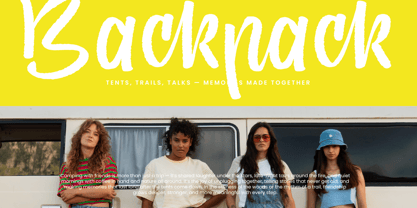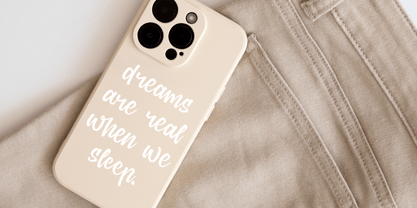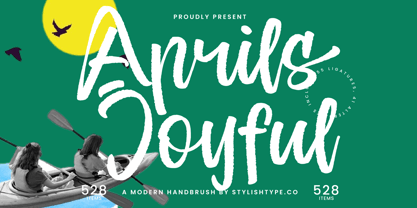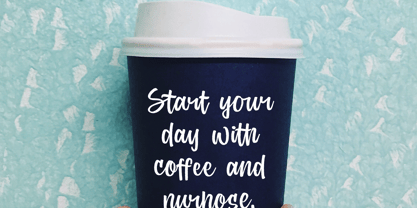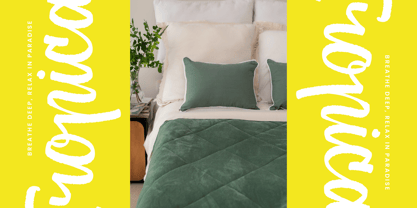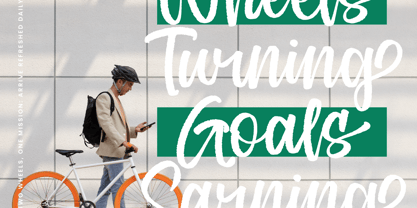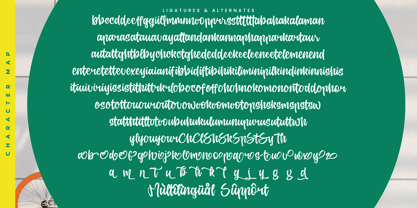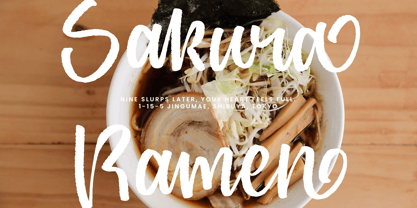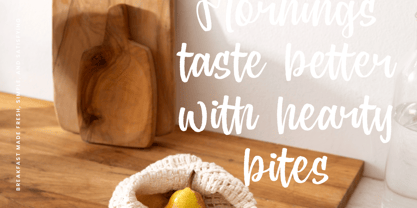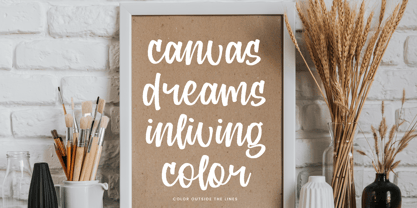
Aprils Joyful
by Stylishtype Studio
The Aprils Joyful Font Family was designed by Heru Utama Putra and published by Stylishtype Studio. Aprils Joyful contains 2 styles and family package options. More about this family
Aprils Joyful - Modern Handbrush Font , from Stylishtype, Suitable for any projects such as: logos, branding projects, homeware designs, product packaging, mugs, quotes, posters, shopping bags, t-shirts, book covers, name card, invitation cards, greeting cards, label, photography, watermark, special events, and all your other luxury and beautiful projects that need a Luxury Script taste.